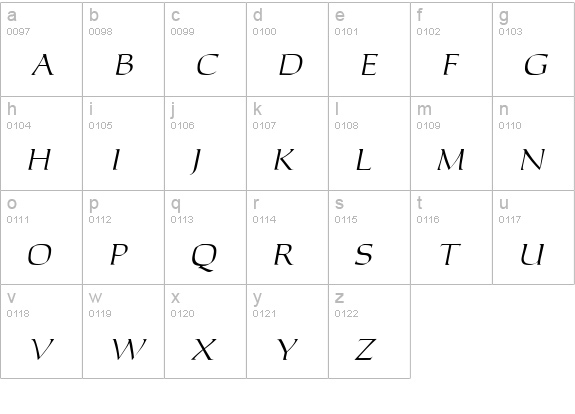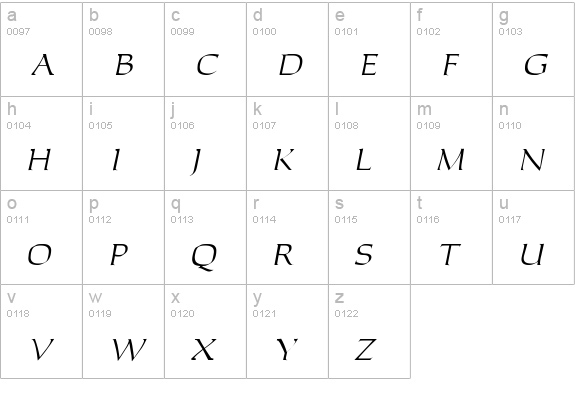
Carla Italic is a distinctive, italic variant in the Carla typeface family \xE2\x80\x94 well suited to design and typography projects.
Introducing Carla Italic font, a sleek and modern typeface that exudes elegance and sophistication. With its slanted design and graceful curves, Carla Italic is perfect for adding a touch of finesse to your projects. Whether you're designing a wedding invitation, creating a logo, or crafting a stylish poster, this font is sure to make a statement. The best part? Carla Italic is completely free to download at FontsMarket.com. That's right, you can enhance your designs with this beautiful font without breaking the bank. So why wait? Add Carla Italic to your font collection today and watch your designs come to life with style and flair.